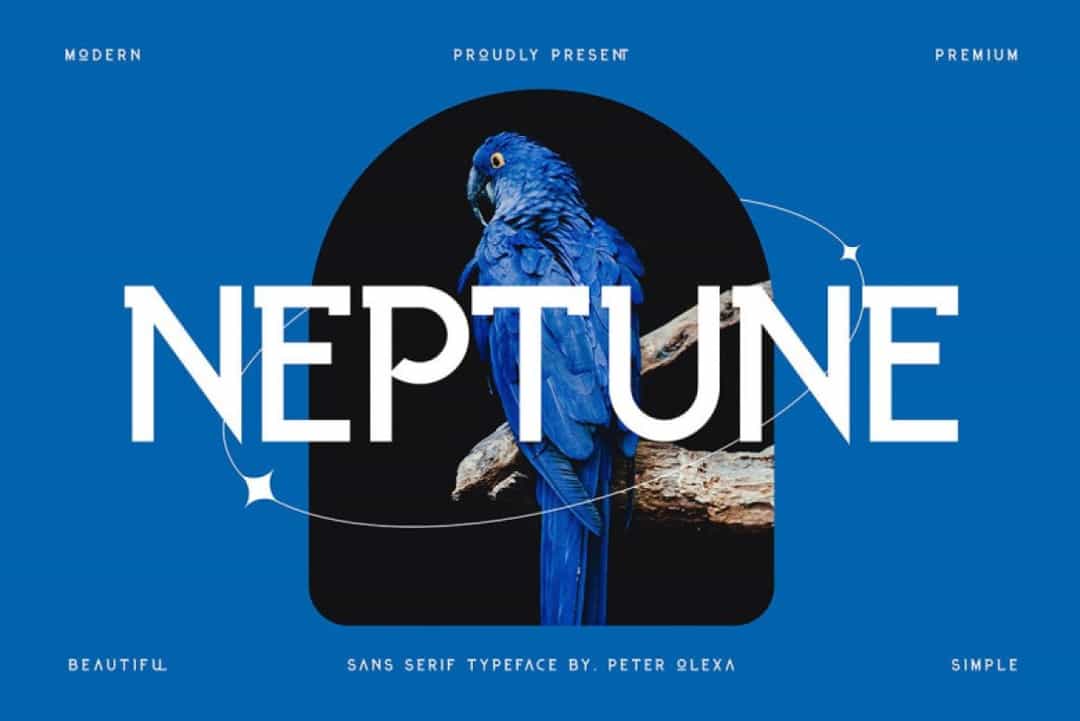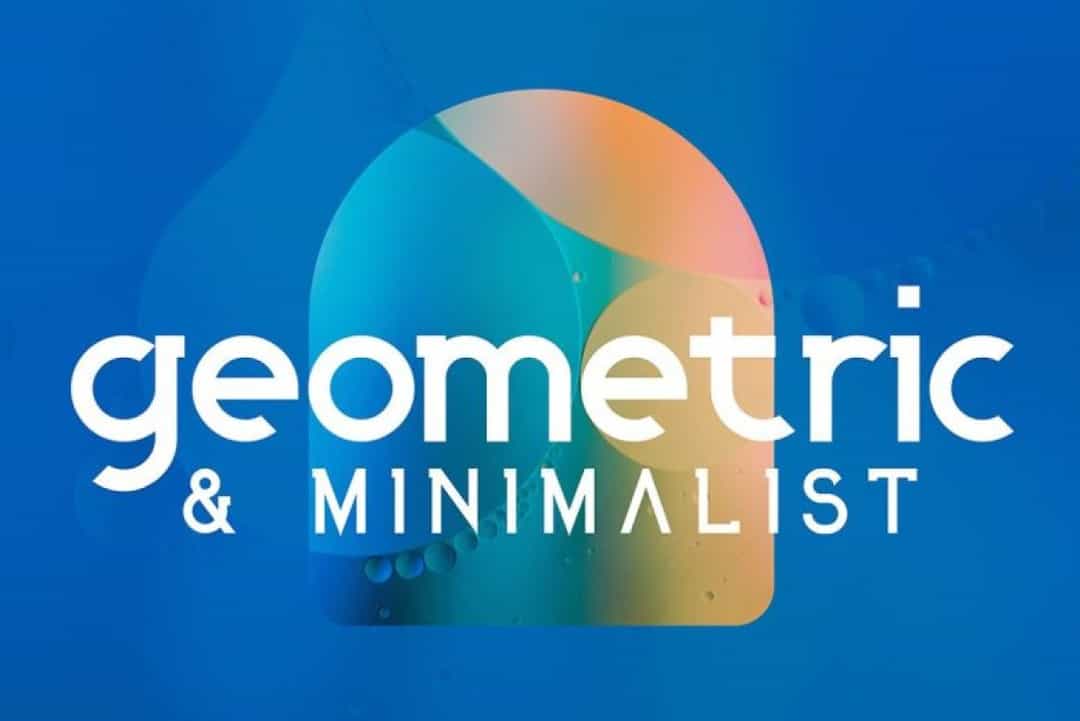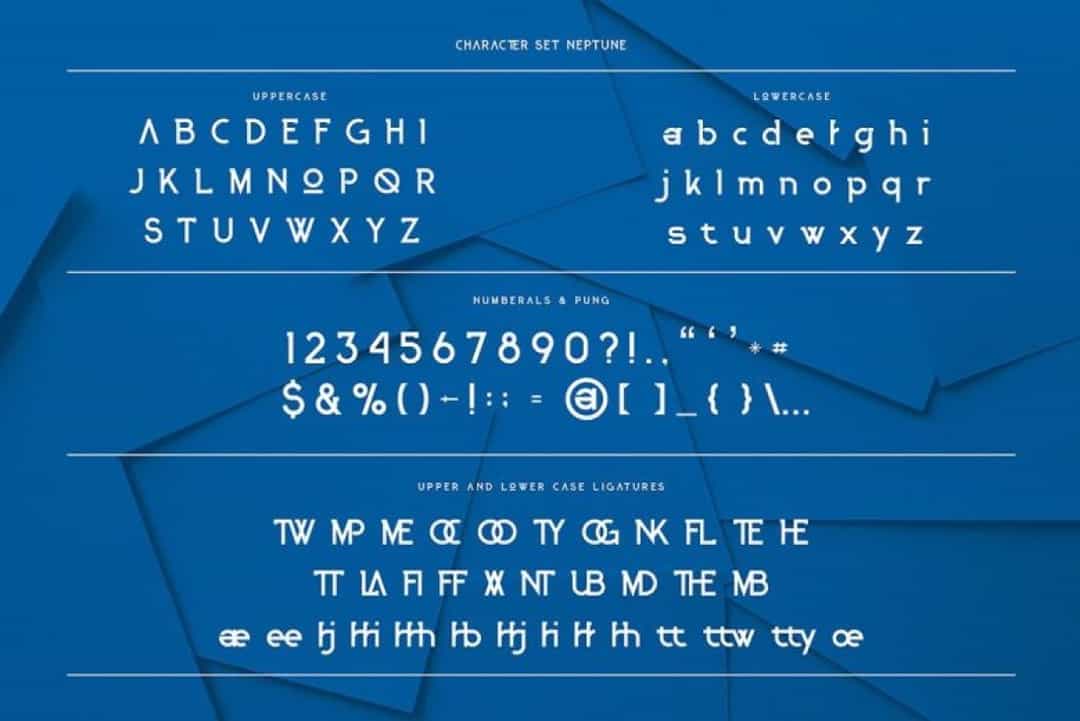
Discover Neptune Font, part of the Sans Serif Display collection—a versatile and unique font perfect for adding a personal touch to your projects. Download it for free and enjoy crafting designs with style, from invitations to social media posts. This font is available exclusively for personal use, giving you the freedom to create without limits. Unlock your creativity with Neptune Font today!
Neptune Font – Modern Sans Serif Font for your Modern Projects Neptune Font is an innovative, modern and simple sans serif font designed to meet all of your futuristic or modern project requirements. Featuring geometric and sharp style features it makes an excellent addition to futuristic or modern designs.